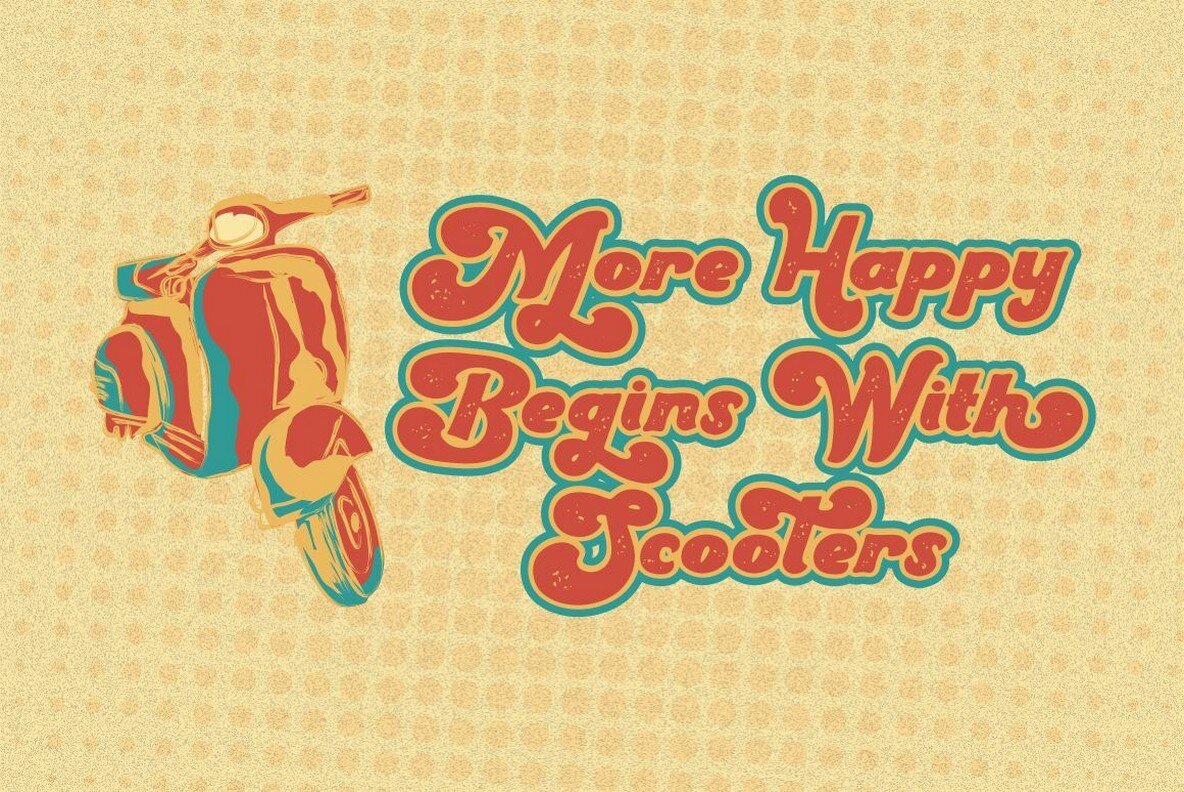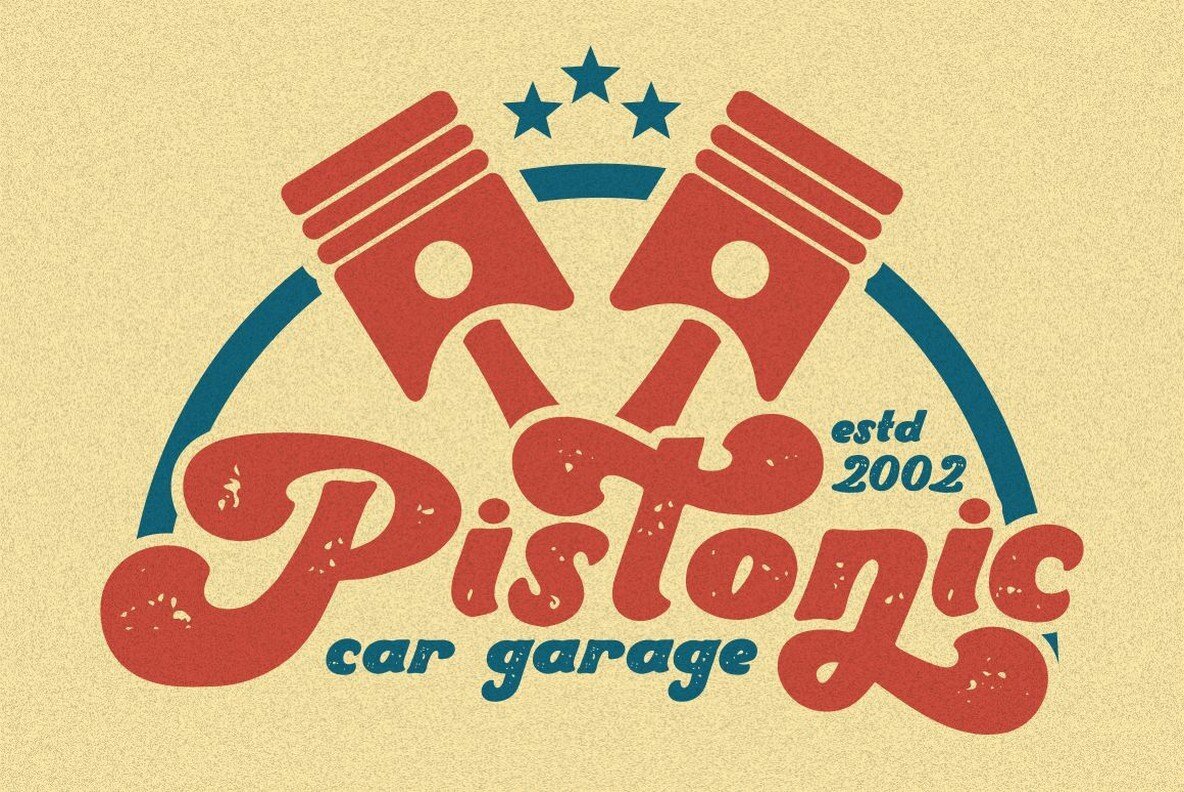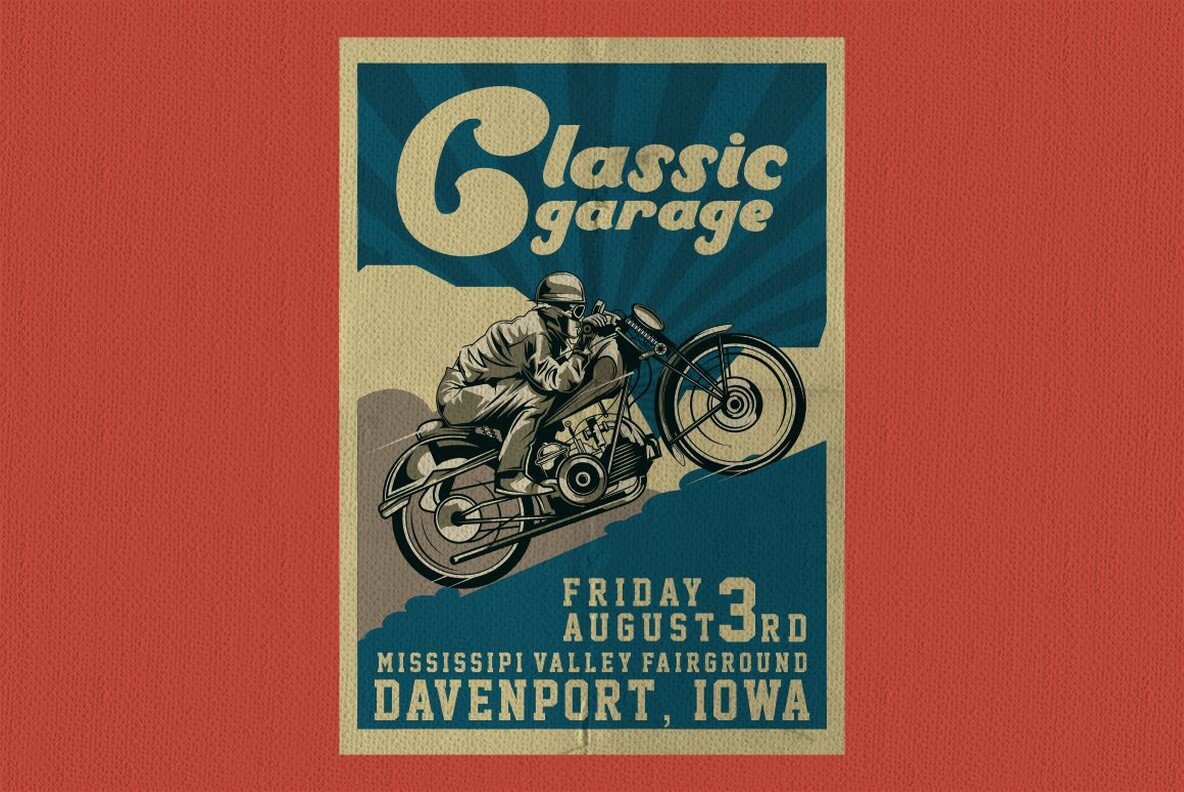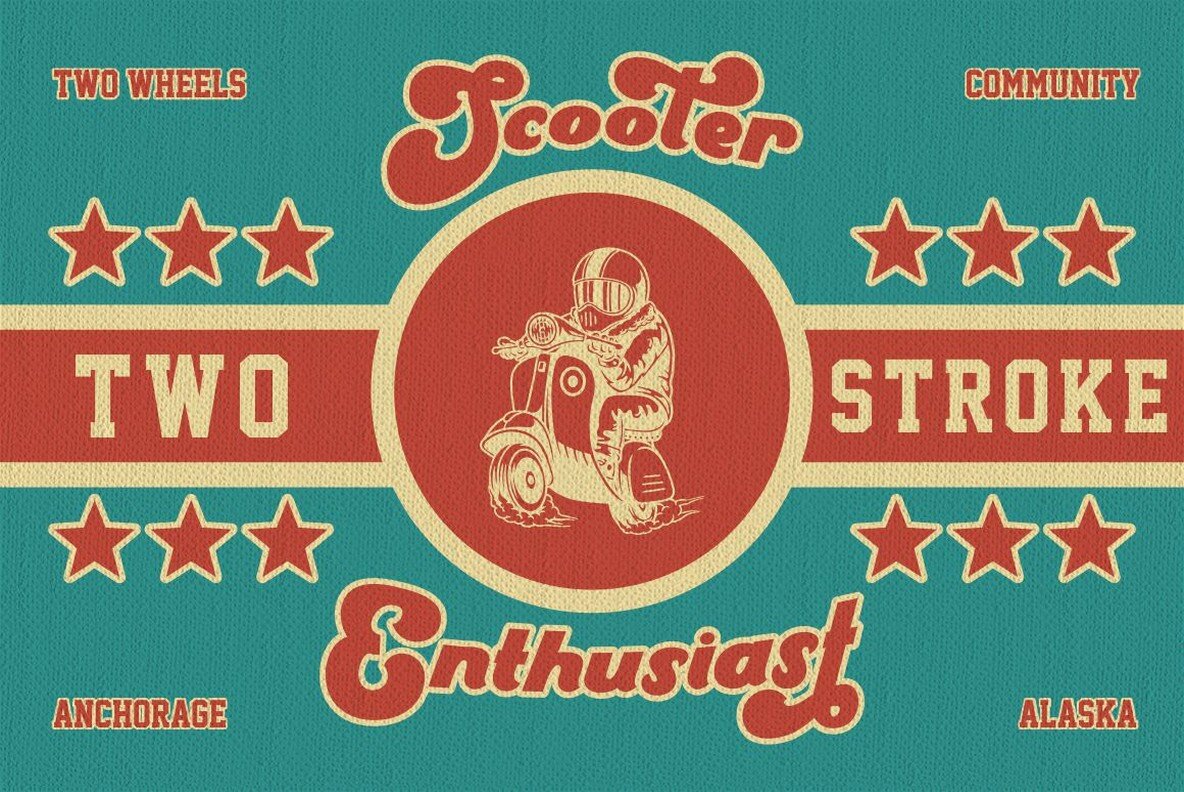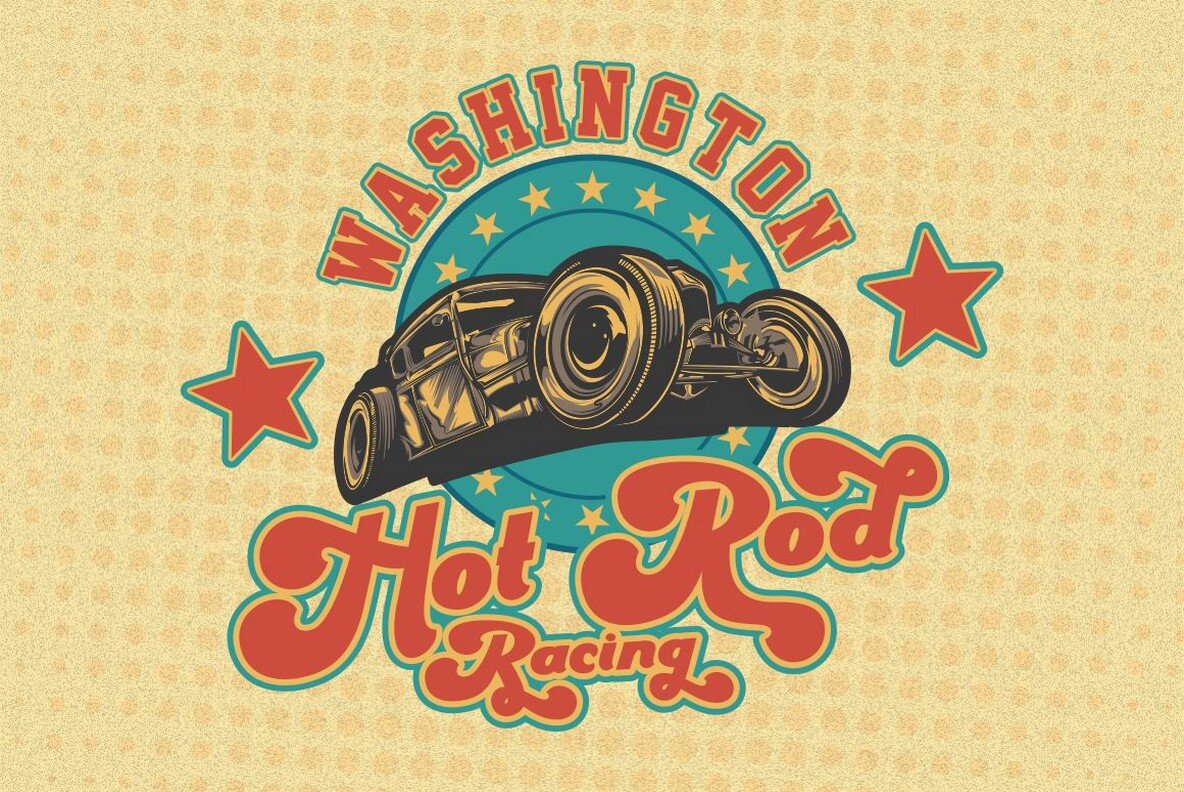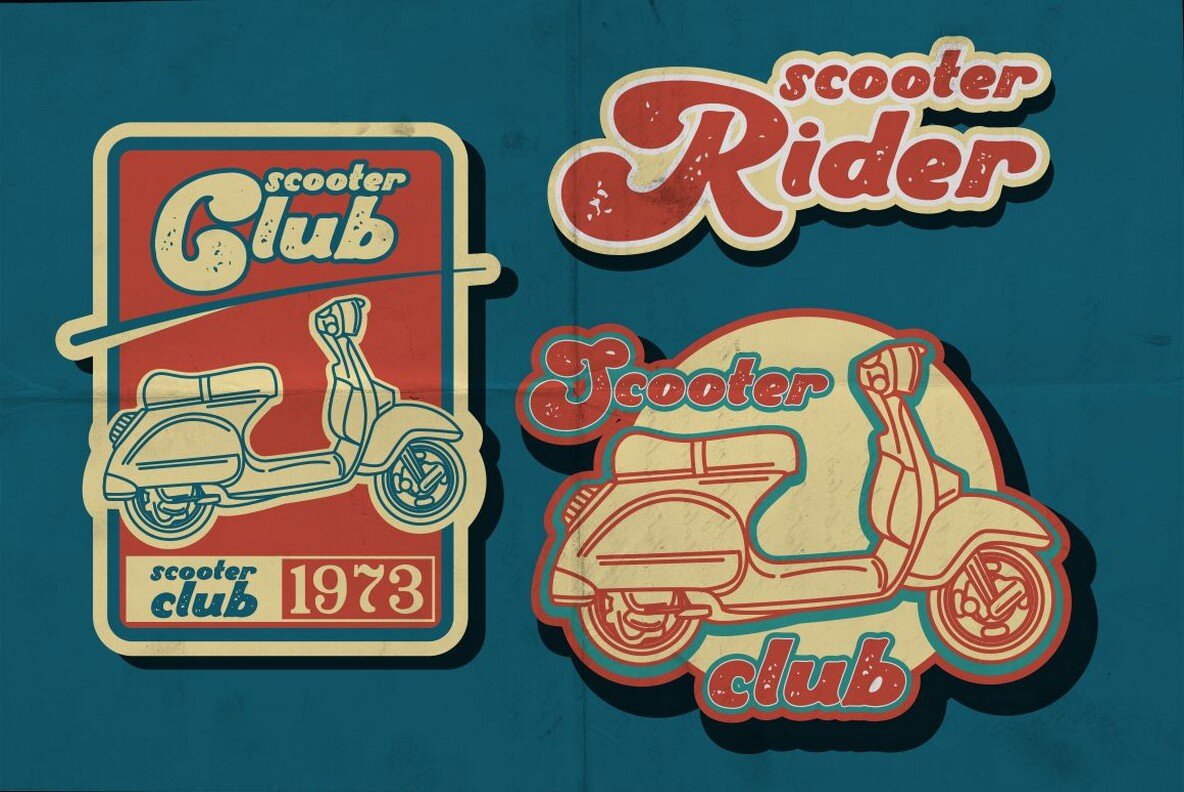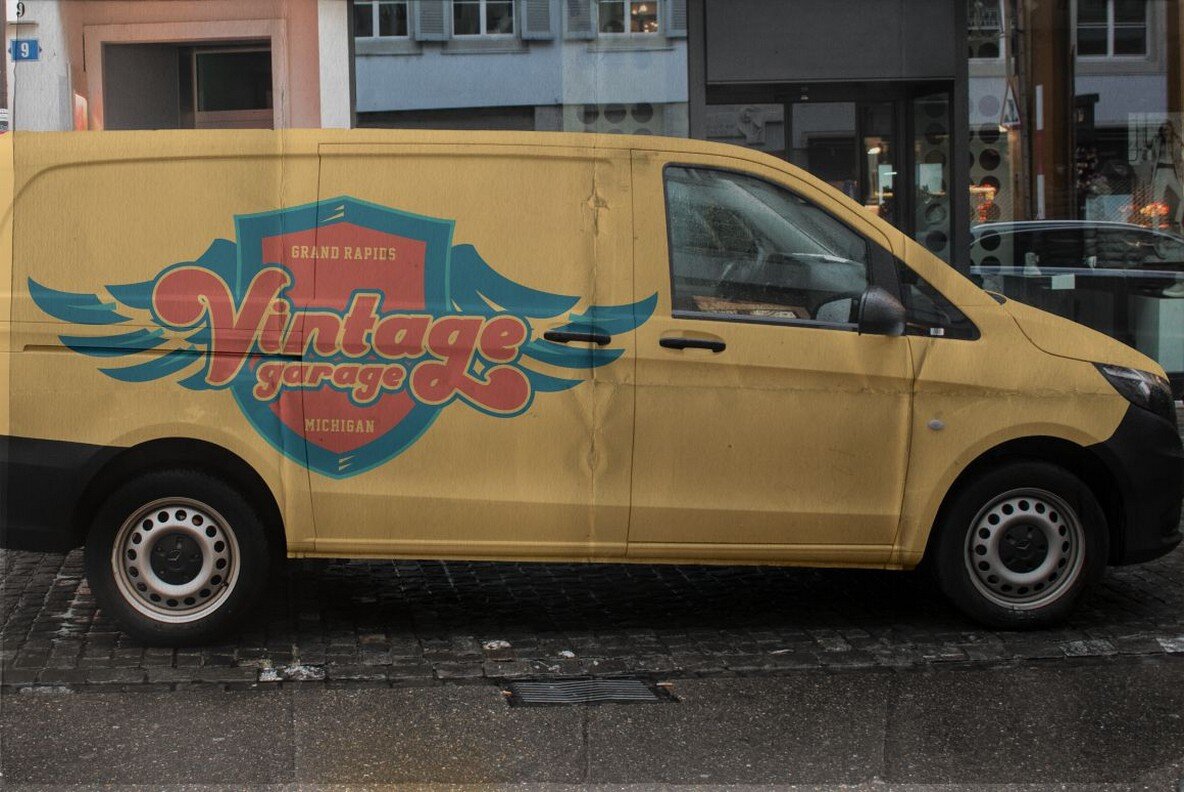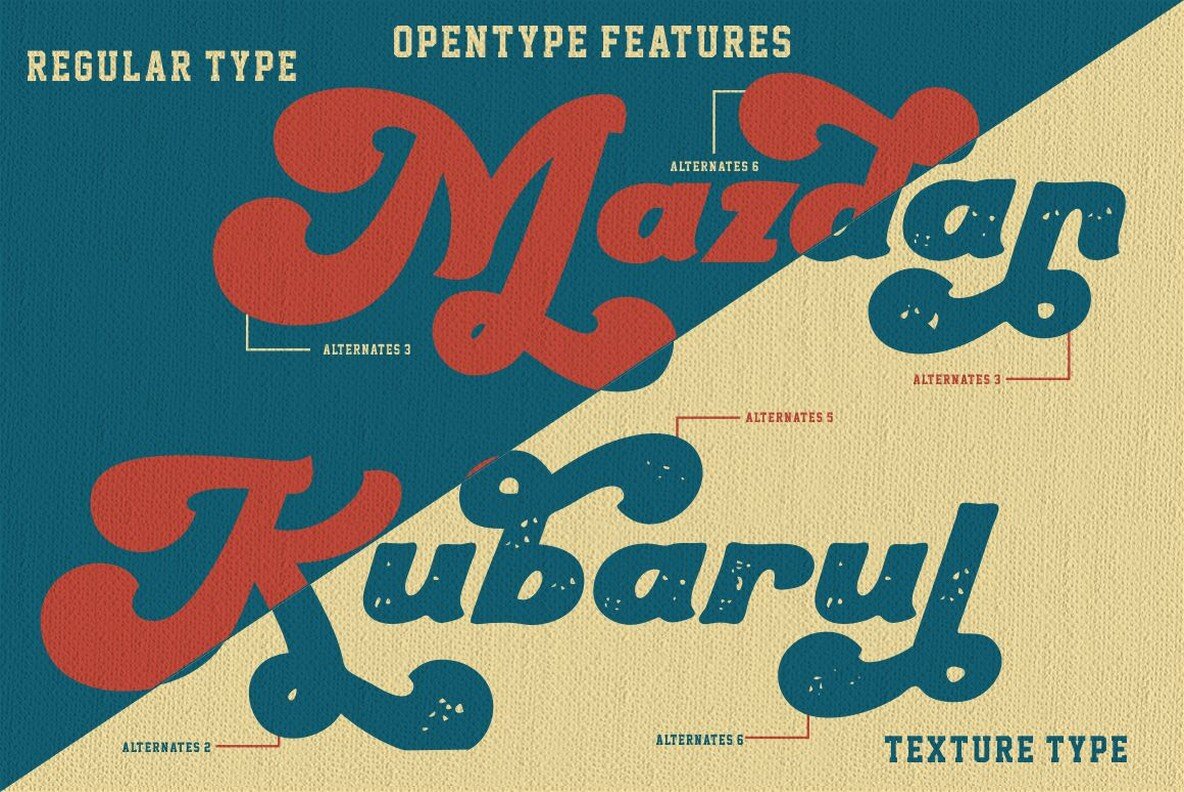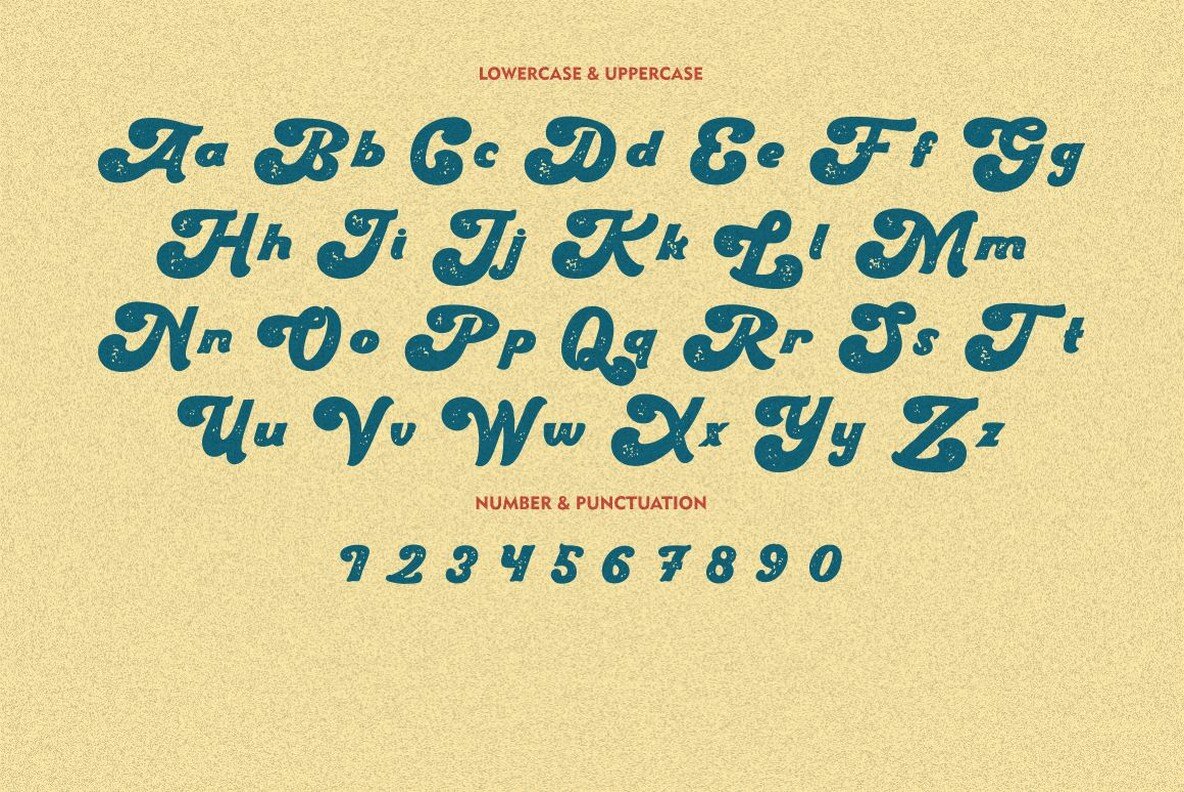
Retro Couture Font
Retro Couture
Retro Couture Texture
Retro Couture brings the charm of yesteryear into modern design with a bold style inspired by vintage posters. Carefully handcrafted, this font is ideal for projects ranging from home decor to captivating craft designs. With its artisanal roots, Retro Couture makes for a standout choice in creative works. An ideal pick for lovers of retro aesthetics, Retro Couture serves as a versatile option for storybooks, illustrations, comic books, t-shirts, posters, greeting cards, logos, branding projects, and even stickers and crafting, showcasing its wide utility across distinct platforms. The font's alternative characters are accessible through comprehensive Open Type features such as Swash, Stylistic Sets, and Contextual Alternates. These can be employed using Open Type savvy software like Adobe Illustrator, InDesign, Photoshop, Corel Draw, and even Microsoft Word, making Retro Couture a flexible and functional addition to your design toolkit.Retro Couture: Vintage Bold Font Collection